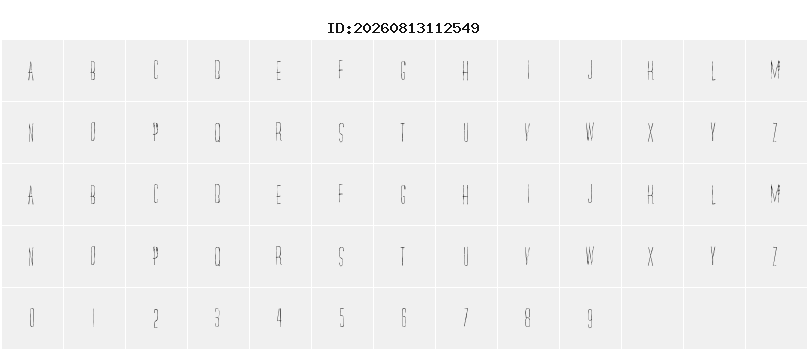
• Font Name: RedlightDistrict
• Font ID: RedlightDistrict:Version 1.00
• Full Font Name: RedlightDistrict
• Version: Version 1.00 March 23, 2016, initial release
• PostScript Name: RedlightDistrict
• Character Count: 73
• Designer: Max Infeld Xerographer Fonts
• Manufacturer: Xerographer Fonts
• Description: Made by Xerographer Fonts in Chico,California
About RedlightDistrict.ttf
RedlightDistrict.ttf is a modern, elegant sans-serif font designed for ultimate readability and visual harmony. Perfect for branding, headlines, web design, and print materials.